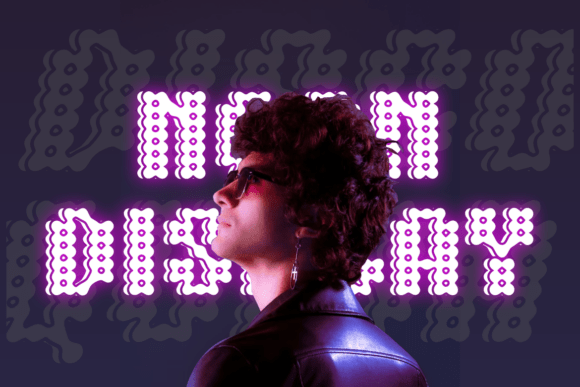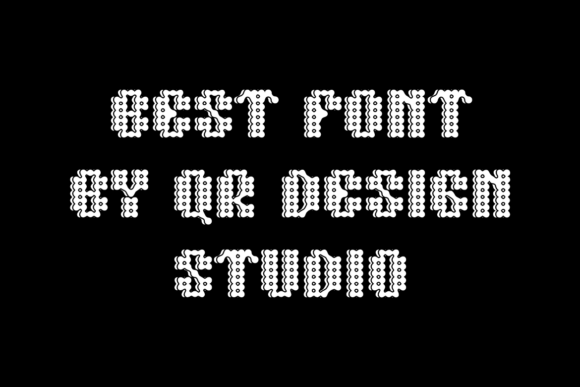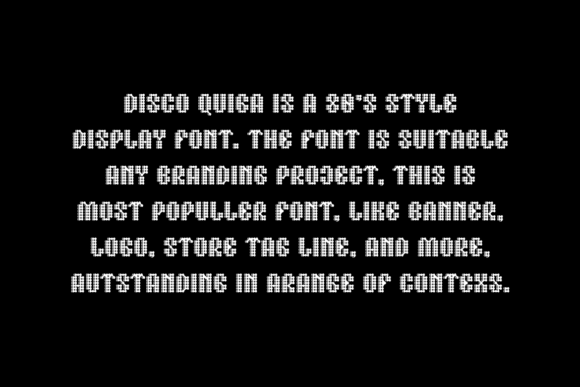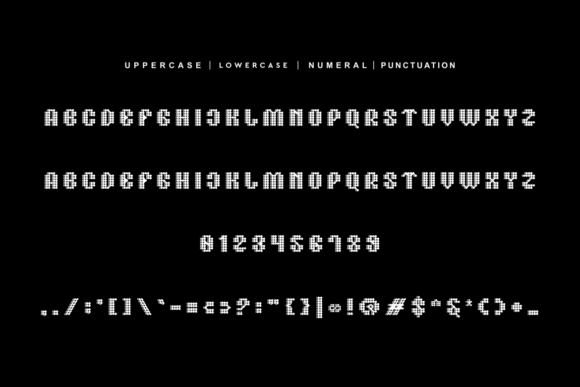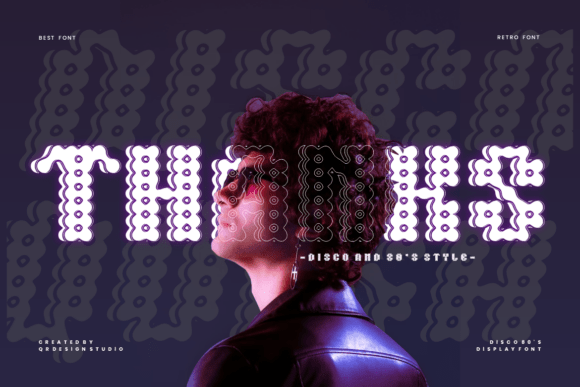
Introducing Disco Quiga Font: The Ultimate Display Font for Bold Branding
Are you tired of using the same old fonts for your branding projects? Do you want to make a statement and stand out from the crowd? Look no further than Disco Quiga Font, a bold and authentic display font that’s perfect for any project that needs a touch of excitement. In this article, we’ll dive into the world of Disco Quiga Font and explore its features, benefits, and uses.
What is Disco Quiga Font?
Disco Quiga Font is a bold and authentic display font designed to make a statement. Its unique and eye-catching design makes it perfect for branding projects that need to stand out from the crowd. Whether you’re creating a logo, designing a sports-themed project, or working on a craft project, Disco Quiga Font is the perfect choice.
Key Features of Disco Quiga Font
- Bold and Authentic Design: Disco Quiga Font has a bold and authentic design that’s perfect for making a statement.
- Versatile: This font is suitable for a wide range of contexts, including logos, sports-themed projects, and craft projects.
- Easy to Read: Despite its bold design, Disco Quiga Font is easy to read, making it perfect for headlines and titles.
- Unique and Eye-Catching: Disco Quiga Font has a unique and eye-catching design that will make your project stand out from the crowd.
Benefits of Using Disco Quiga Font
So, why should you use Disco Quiga Font for your next project? Here are just a few benefits of using this amazing font:
- Adds a Touch of Excitement: Disco Quiga Font adds a touch of excitement and energy to any project.
- Perfect for Branding: This font is perfect for branding projects, including logos, business cards, and more.
- Increases Visibility: The bold design of Disco Quiga Font makes it easy to read and increases visibility.
- Versatile: Disco Quiga Font can be used for a wide range of projects, from sports-themed designs to craft projects.
Uses of Disco Quiga Font
So, what can you use Disco Quiga Font for? The possibilities are endless! Here are a few ideas to get you started:
- Logo Design: Disco Quiga Font is perfect for logo design, adding a touch of excitement and energy to your brand.
- Sports-Themed Projects: This font is perfect for sports-themed projects, including jerseys, posters, and more.
- Craft Projects: Disco Quiga Font is also great for craft projects, including handmade cards, scrapbooking, and more.
- Advertising: The bold design of Disco Quiga Font makes it perfect for advertising, including billboards, flyers, and more.
Tips for Using Disco Quiga Font
Here are a few tips for using Disco Quiga Font:
- Use it for Headlines: Disco Quiga Font is perfect for headlines and titles, adding a touch of excitement and energy to your project.
- Pair it with Other Fonts: Disco Quiga Font can be paired with other fonts to create a unique and eye-catching design.
- Experiment with Colors: The bold design of Disco Quiga Font makes it perfect for experimenting with different colors and designs.
In conclusion, Disco Quiga Font is a bold and authentic display font that’s perfect for any branding project. Its unique and eye-catching design makes it perfect for making a statement, and its versatility makes it suitable for a wide range of contexts. Whether you’re a designer, crafter, or simply someone who loves fonts, Disco Quiga Font is a must-have in your collection.